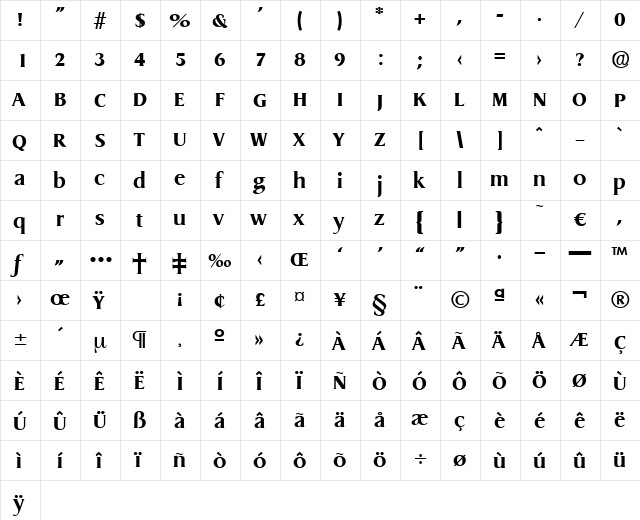
Dragon-Bold Regular
Design Context for Dragon-Bold Typeface
Dragon-Bold takes a measured approach to typography — its balanced proportions and neutral character make it a reliable workhorse for both digital and print work. The heavy weight commands attention and anchors typographic hierarchies.